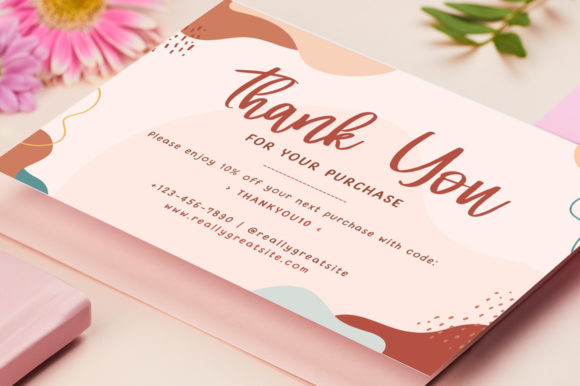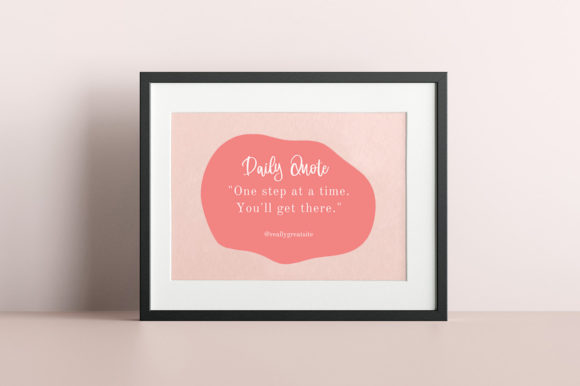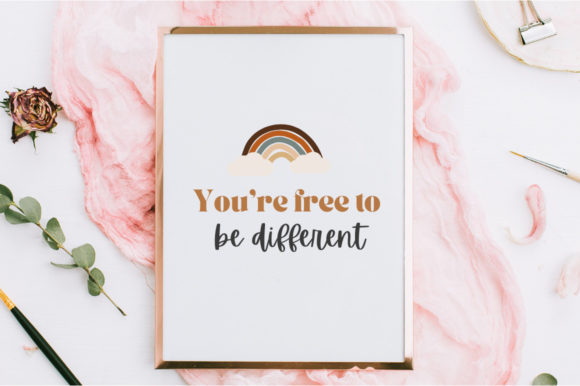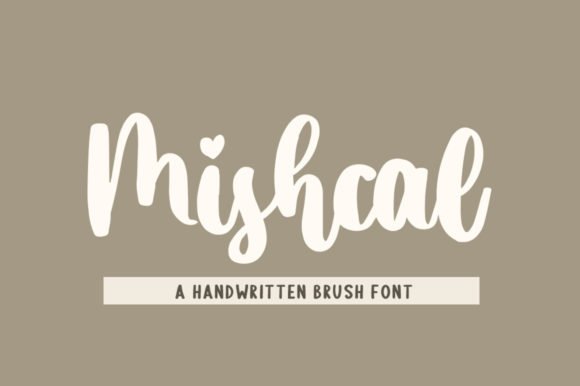
Introduction to Mishcal Font
Mishcal is a romantic and sweet calligraphy typeface with characters that dance along the baseline.
It has a casual, yet elegant touch This font is PUA encoded which means you can access all of the glyphs and swashes with ease.